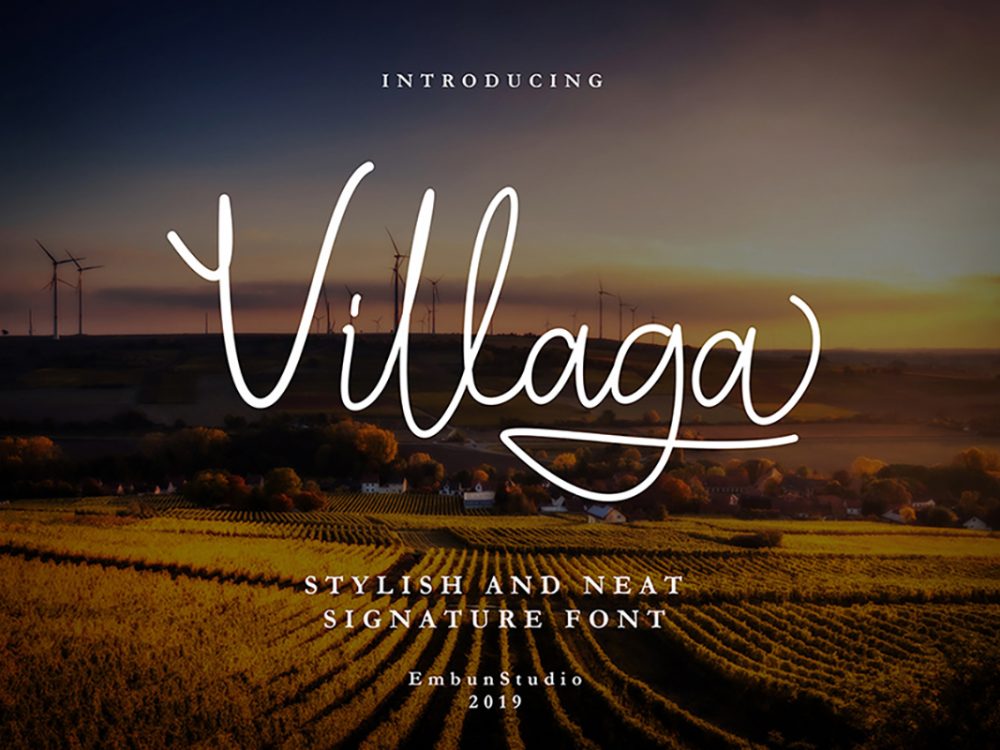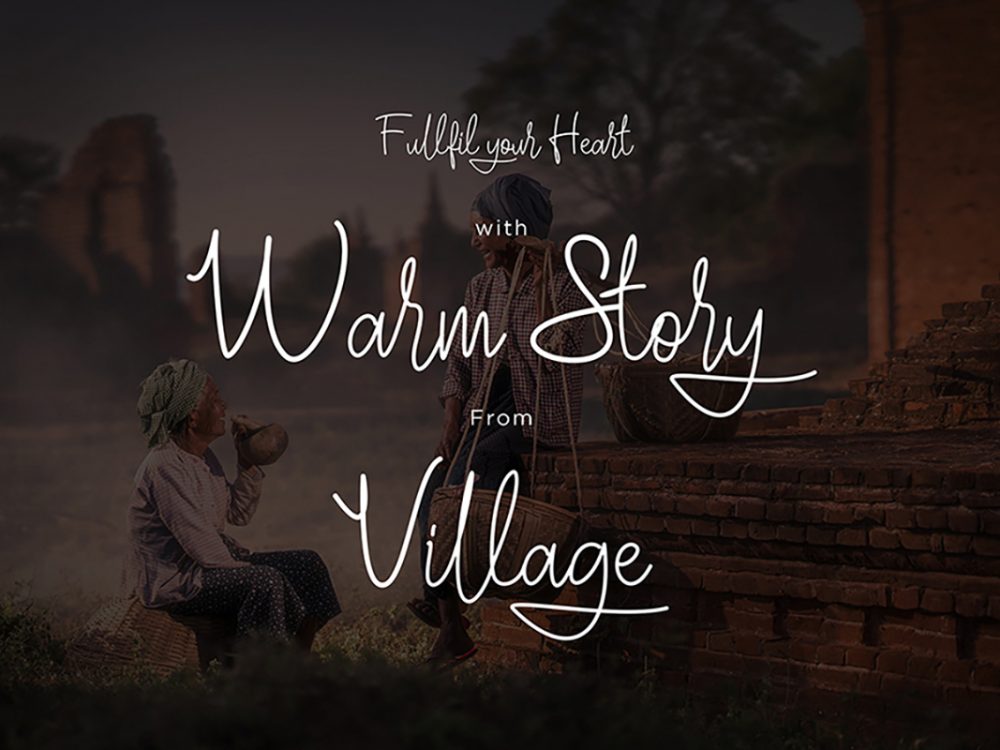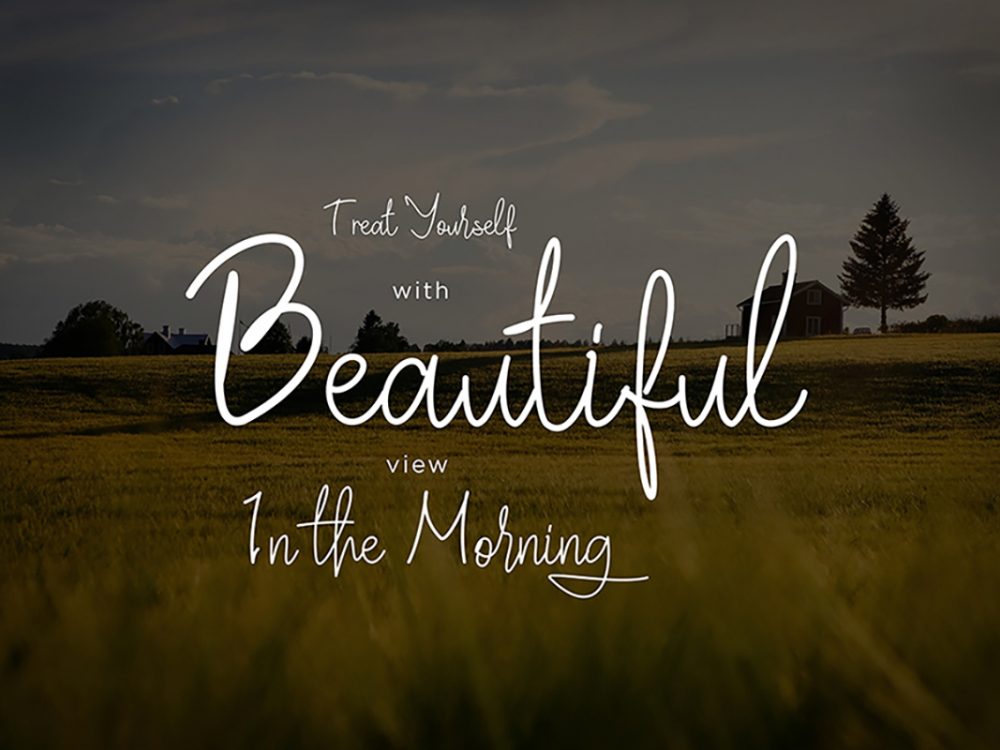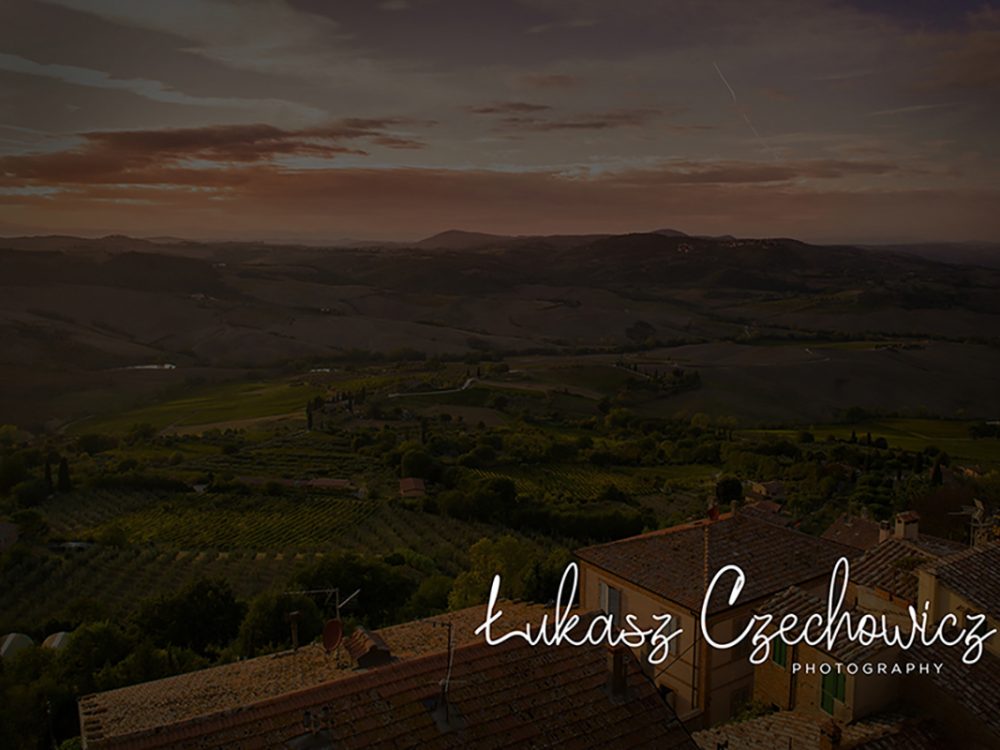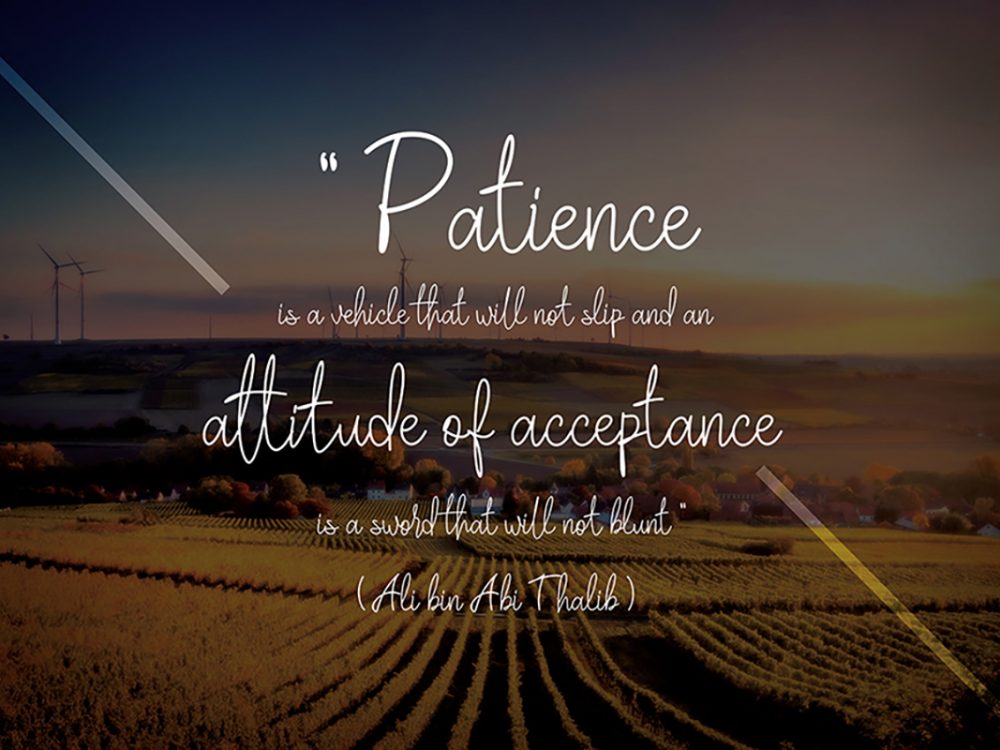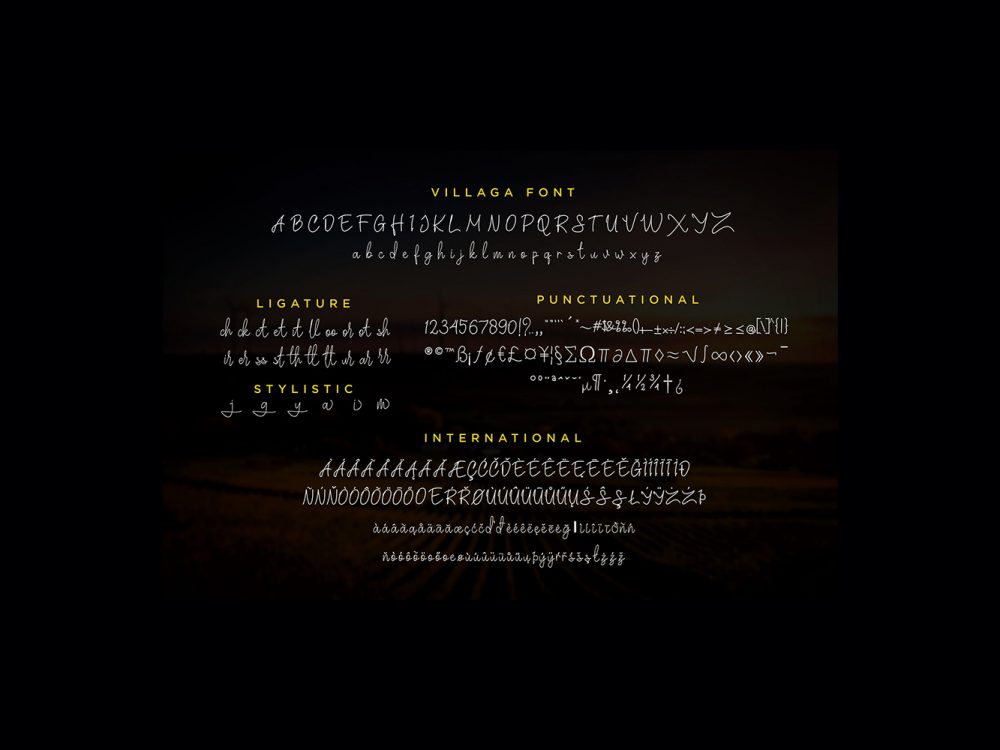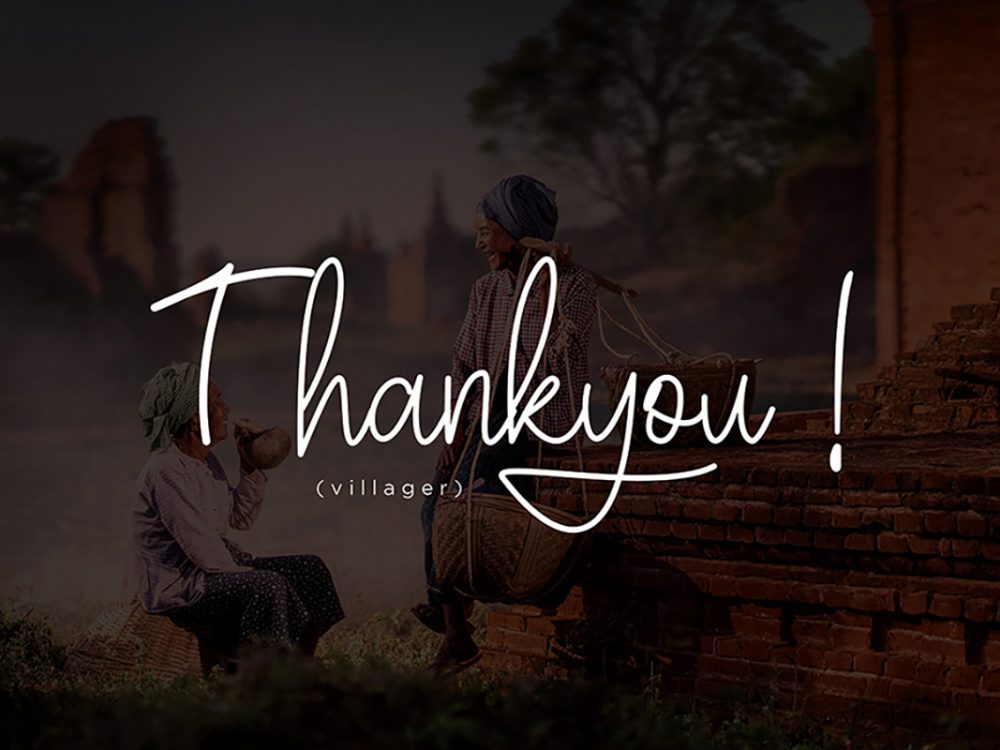
Villaga Stylish Signature Font
Villaga Stylish Signature Font is a beautiful modern corporate typeface with very interesting typography that is perfect for creating various design projects that require a handwritten typeface. These can be designs for posters, cards, flyers, invitations, prints, and more.